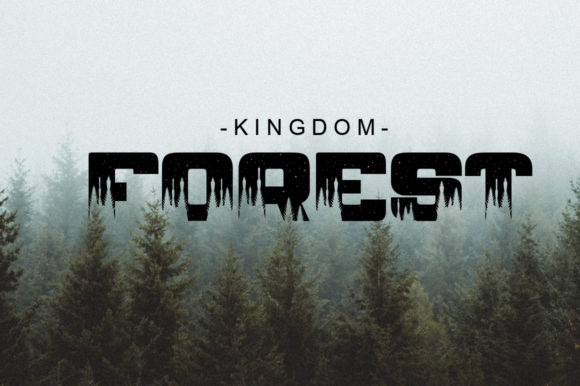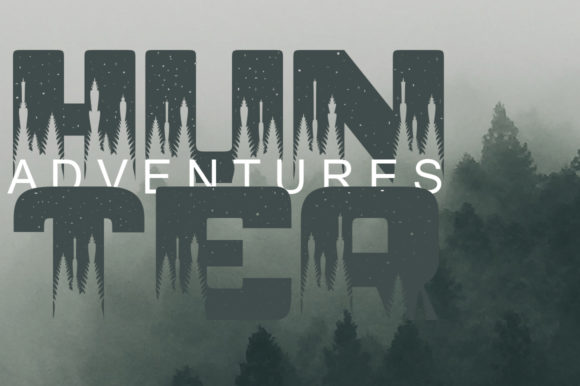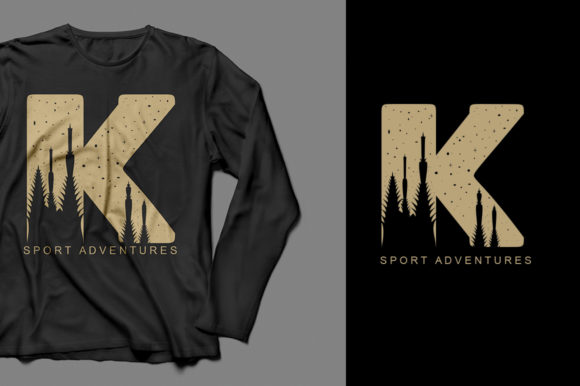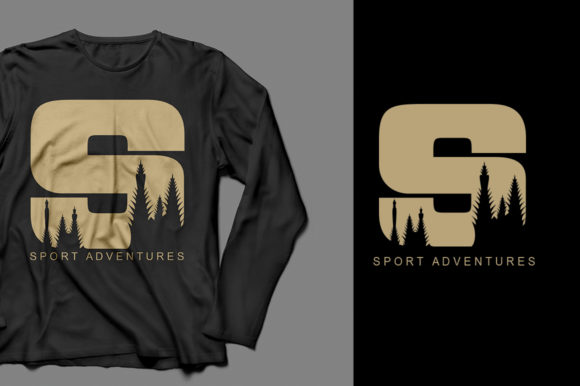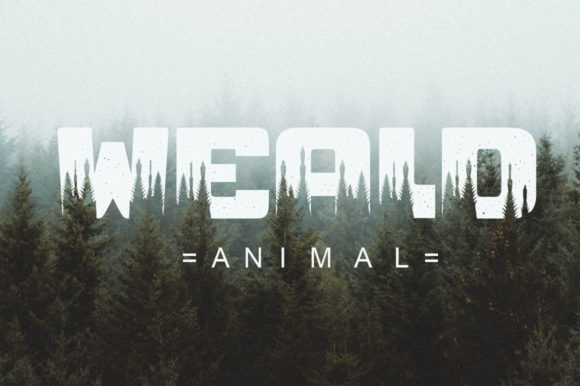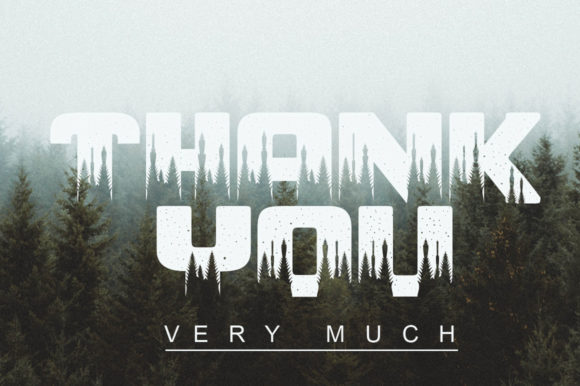
Introduction to Pine Jungle Font
Do you remember the excitement of creating your first handmade card for a loved one? The hours spent searching for the perfect materials, the joy of crafting a unique design, and the sense of pride when it’s finally complete? For designers, that same excitement comes alive with the right tools and resources. One such gem is the Pine Jungle Font, a charming display font that’s about to become your new favorite design companion.
This high-quality font is a treasure trove of cute forest-themed characters, waiting to be unleashed on your next creative project. Whether you’re designing eye-catching logos, greeting cards, or any other visual masterpiece, the Pine Jungle Font is sure to bring a touch of whimsy and personality to your work. With its transparent background and free download option, it’s the perfect design resource for any project.
Key Features of Pine Jungle Font
- Unique, high-quality design suitable for creative projects and various design resources.
- Perfect for use in logo designs, branding materials, and other creative projects where a unique font is required.
Honest Review: Pine Jungle Font
I recently stumbled upon the Pine Jungle Font, and I must say it’s a great addition to any designer’s toolbox. This high-quality font is perfect for creative projects where you want to add a touch of natural elegance.
One of the things I love about this font is its versatility. It comes in a transparent background option, making it easy to overlay on top of images or other design elements. This makes it a fantastic design resource for any project.
- ✨ High-quality design with a natural, organic feel
- ✨ Versatile and easy to use
- ✨ Transparent background option for seamless overlays
- ⚠️ Limited character set (may not be suitable for longer texts)
- ⚠️ Some users may find the font too decorative or busy
Overall, I’m impressed with the Pine Jungle Font. While it may not be suitable for every project, it’s a great addition to any designer’s toolkit. If you’re looking for a unique, high-quality font for your next creative project, I’d definitely recommend giving it a try.
The Pine Jungle Font is ideal for creative projects such as logos, posters, and social media graphics. It is also suitable for business cards, flyers, and brochures. With its high-quality design and free download, the Pine Jungle Font is a versatile design resource for any project.